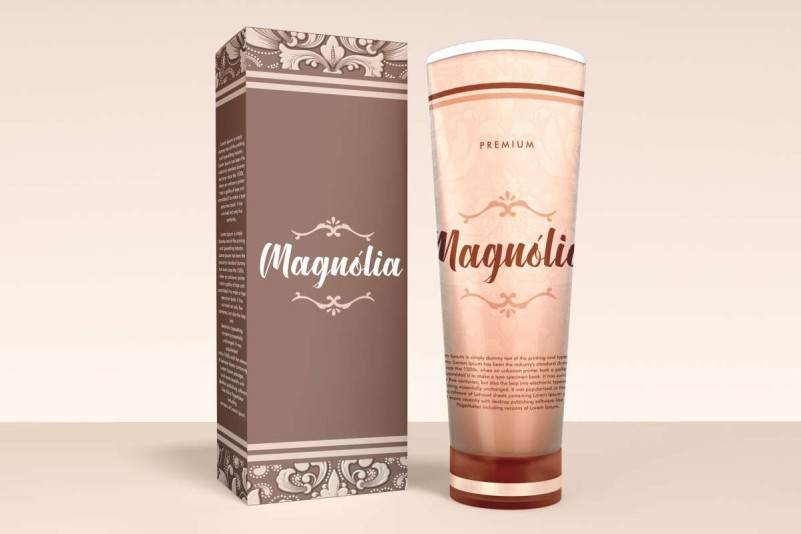
Cavirous Font
Cavirous Script Font is a stylish script font with classical calligraphy look and bold lines. The characters in this font are carefully crafted to create a stunning work, such as business card, custom design, invitation, label, magazine catalog, menu, poster, product packaging, quote, website, and more!
Cavirous Font includes full set of Uppercase and Lowercase Basic Characters, Numerals, and Punctuation. It also contain Alternate and Swoosh characters that will add perfection and making it suitable for many industries, such as café, cosmetic, fashion, florist, jewelry, photography, restaurant, skincare, wedding or event organizer, etc.